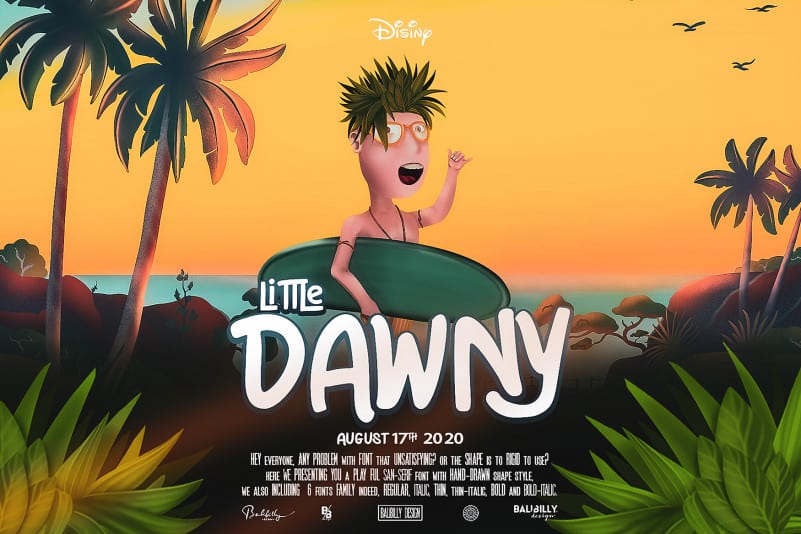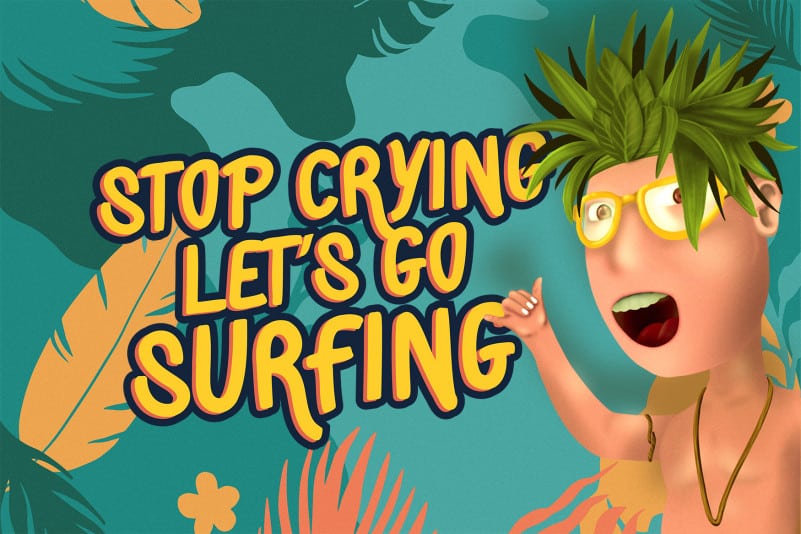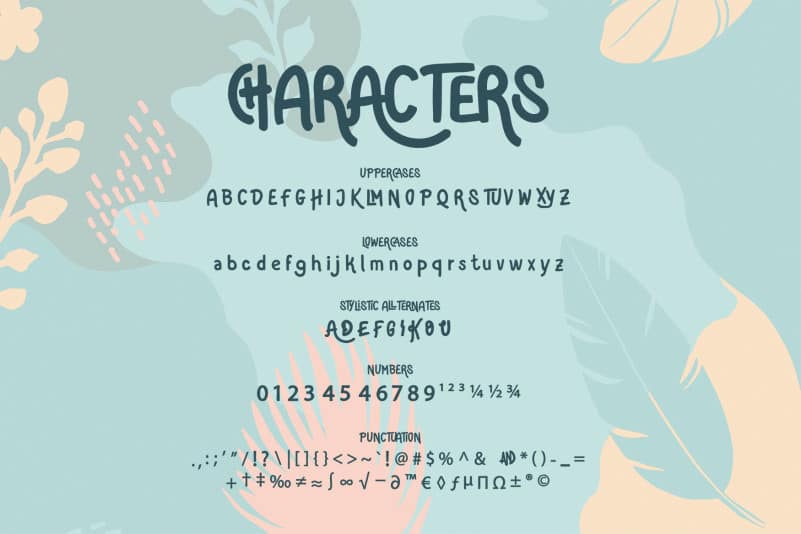
Patahola Playful Kids Font
Introducing Patahola – A Playful Hand-drawn display sans serif font
Patahola Playful Kids Font is a Playful Hand-drawn display sans serif font with 6 font family, regular, italic, thin, thin-italic, bold, and bold-italic. This font is dedicated to creative people that need a display type with playful taste and unique text. It will elevate a wide range of design projects to the highest level.
Strikingly versatile for packaging, branding logotype, logo badges, digital lettering arts, apparel, poster, website layout, magazine, card, signs, advertising design, and any design needs.
**CHARACTER DETAILS**
* Upper case with alternates
* Lower case
* Open type feature
* Double words ligatures
* Three words ligatures
* Numeral
* Punctuation
* Multilingual support